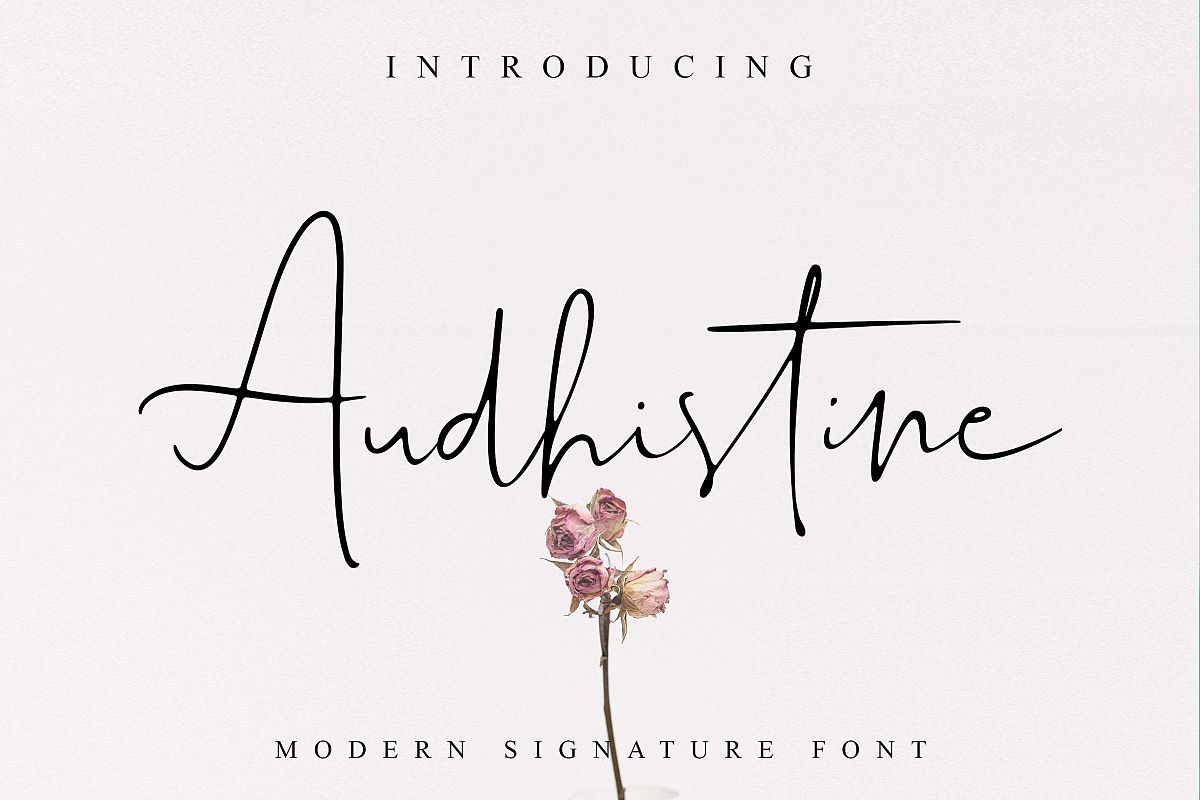
Audhistine Font
Audistine
Script is modern handwritten script. Audhistine is perfect for
branding, signature, watermark, business card, clothing, magazine, web,
and any other design projects.
With 45 unique ligatures, Audhistine
looks naturally.
• 45 Ligatures